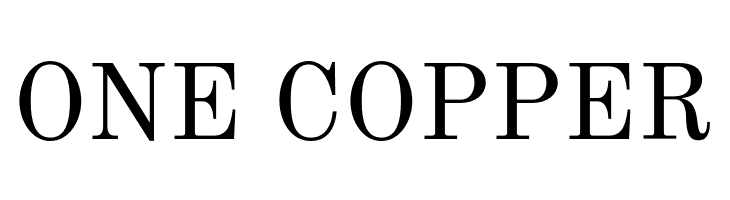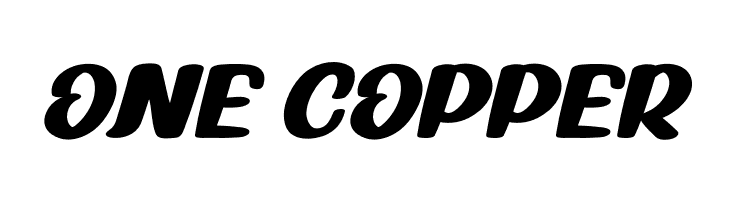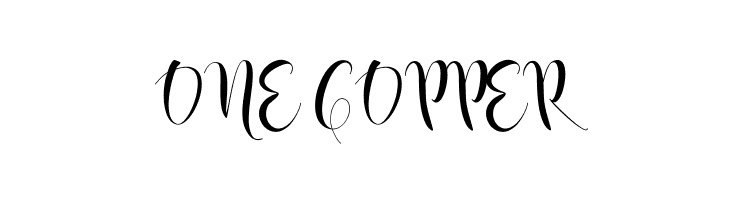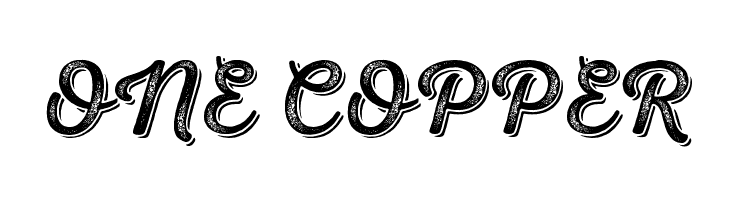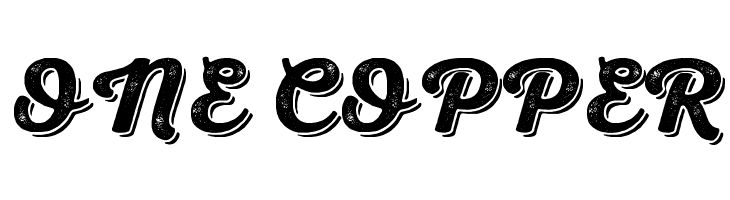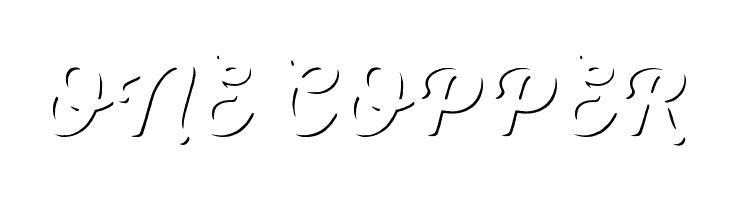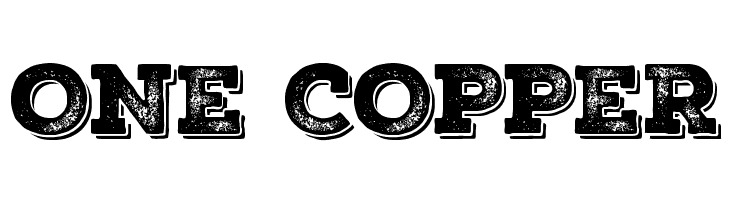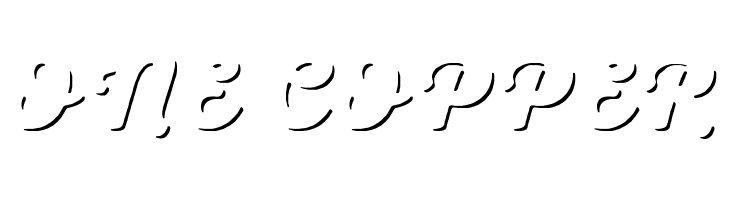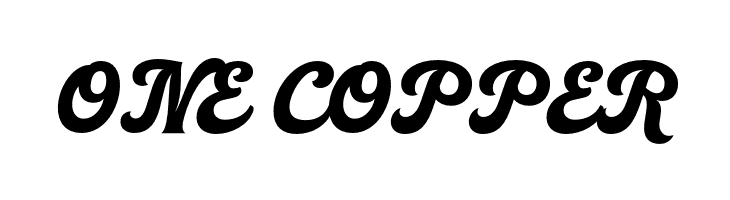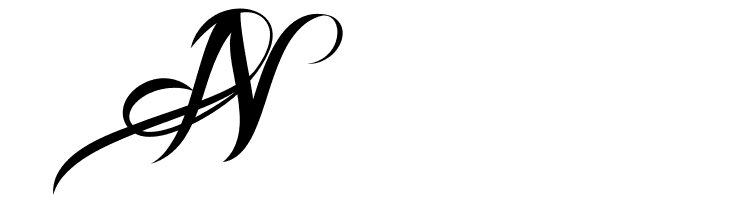
An elegant script font with flowing, ornate characters and decorative flourishes.
A bold, flowing script font with elegant curves and ornate flourishes.
A modern serif typeface with elegant, refined letterforms and versatile applications.
A vintage collection of rustic, handcrafted icons and symbols.
A handcrafted, rustic font with a playful and casual style.
A bold, rustic font with a distressed texture and industrial feel.
A bold, textured script font with a vintage, handcrafted style.
A dynamic script font with a shadow effect, offering a playful and energetic style.
A bold, script font with a shadow effect, offering a vintage and decorative style.
A casual, cursive script font with a friendly and handwritten style.
A smooth, flowing script font with a casual, handwritten style.
A bold, textured script font with a rustic, hand-drawn appearance.
A dynamic script font with a shadow effect, offering elegance and playfulness.
A bold, shadowed script font with a rustic, handcrafted texture.
A bold, textured slab serif font with a vintage shadow effect.
A bold, distressed slab serif font with a vintage, rugged appearance.
A bold, distressed slab serif font with a vintage, industrial style.
A bold, cursive script font with a playful and dynamic style.
A dynamic and elegant script font with fluid, cursive letterforms.
A bold, flowing script font with dynamic, elegant strokes.
A bold, flowing script font with elegant curves and a modern classic style.
An elegant script font with flowing, cursive letterforms and intricate swashes.
A dynamic, fluid script font with an elegant, handwritten style.
A bold, hand-drawn font with dynamic and irregular strokes, exuding energy and creativity.
A bold, brush-stroke font with dynamic uppercase and elegant cursive lowercase letters.
A flowing, cursive script with elegant, connected characters and dynamic stroke variations.